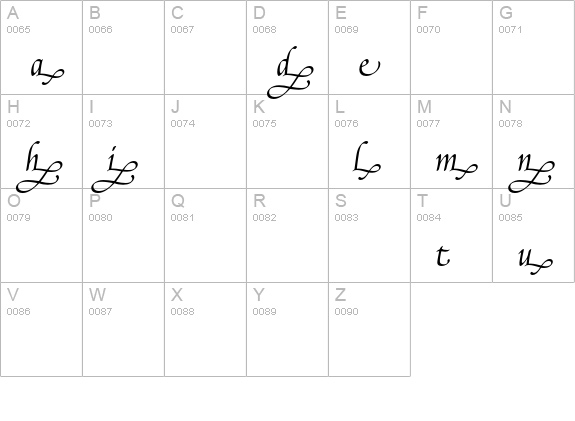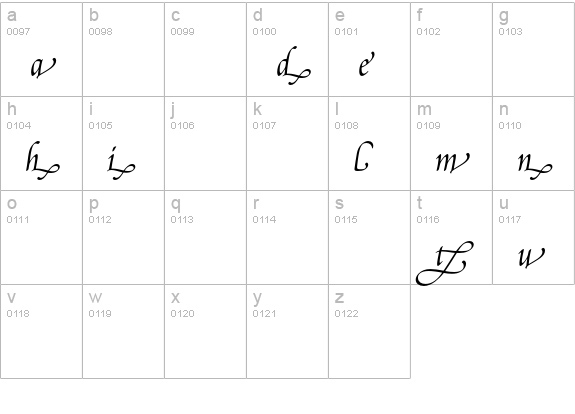
Poetica Supp Lowercase Endings II Font Details
Poetica Supp Lowercase Endings II font is a charming and elegant typeface designed to add a touch of sophistication to your projects. With its delicate lowercase endings and graceful curves, this font exudes a sense of poetic beauty and refinement. This font is perfect for creating stunning invitations, greeting cards, logos, and more. Its timeless appeal and versatile design make it suitable for a wide range of creative endeavors. Whether you're working on a wedding invitation or a branding project, Poetica Supp Lowercase Endings II font is sure to elevate your design to new heights. Best of all, this exquisite font is available for free download at FontsMarket.com. So go ahead and enhance your designs with the timeless elegance of Poetica Supp Lowercase Endings II font today!